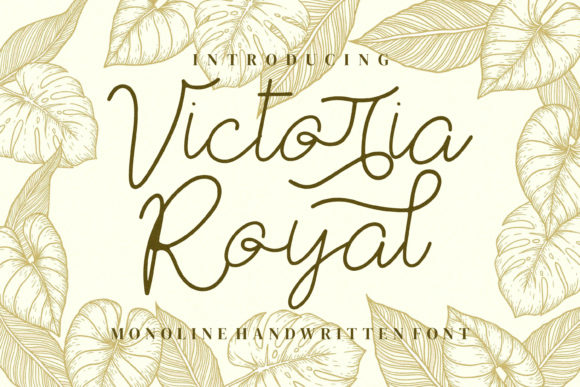
Step into the realm of sophistication and grace with Victoria Royal Font, a masterpiece crafted to elevate your creative endeavors. This exquisite script font exudes elegance and poise, transforming your designs into works of art. Immerse yourself in a world of timeless beauty as Victoria Royal's flowing lines and delicate curves dance across your screen.
Unleash your inner fashionista and let Victoria Royal become your muse. Create captivating logos that radiate luxury and style. Design breathtaking invitations that hint at the grandeur of your special day. Elevate your stationery with a touch of refined elegance. Allow Victoria Royal to be the centerpiece of your wedding designs, adding a touch of romance and enchantment to your celebration.
Enhance your social media presence with captivating posts adorned with Victoria Royal's alluring charm. Let your words dance with grace and sophistication, capturing the attention of your audience. This font is not just a tool; it's an extension of your artistic expression, allowing you to communicate your message with undeniable impact.
Victoria Royal's versatility extends beyond the digital realm. Bring its beauty into the physical world with stunning printed materials that leave a lasting impression. Imagine your business cards adorned with Victoria Royal's intricate details, making a statement of professionalism and impeccable taste. Craft brochures and flyers that captivate your audience with a visual feast of elegance and style.
Join the ranks of discerning designers and tastemakers who have discovered the allure of Victoria Royal. Let this font be your creative companion, guiding you to new heights of artistry and self-expression. Embrace the power of beauty and sophistication, and watch as Victoria Royal transforms your designs into masterpieces that ignite hearts and minds.